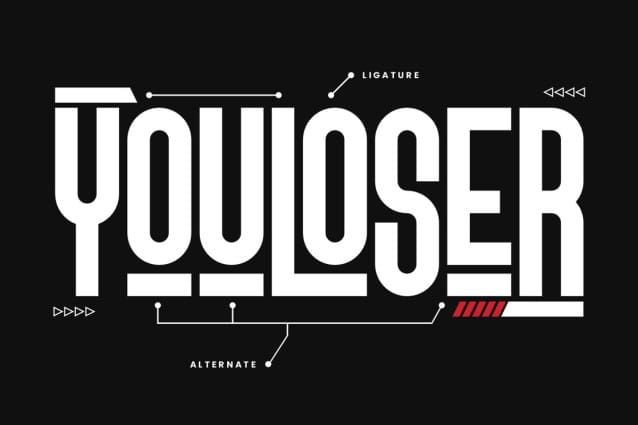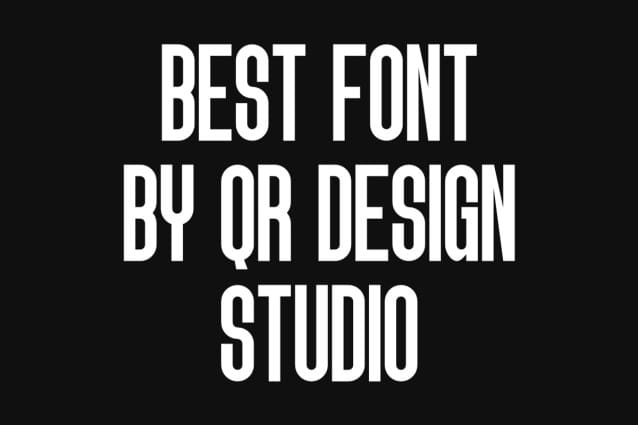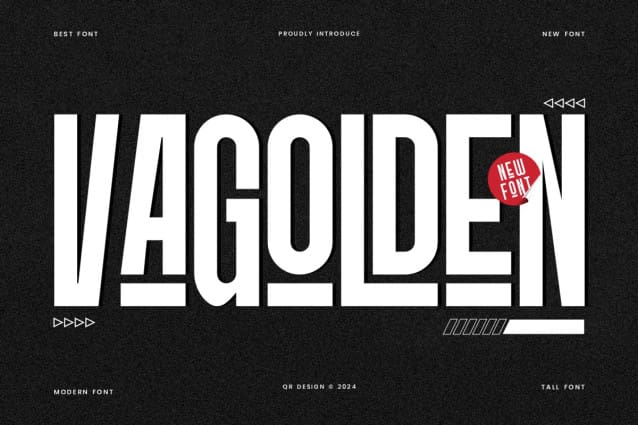
Vagolden Font
Vagolden Font is a bold and authentic display font. The font is suitable for any branding project like poster, logo, sport, and many more. Outstanding in a wide range of contexts.